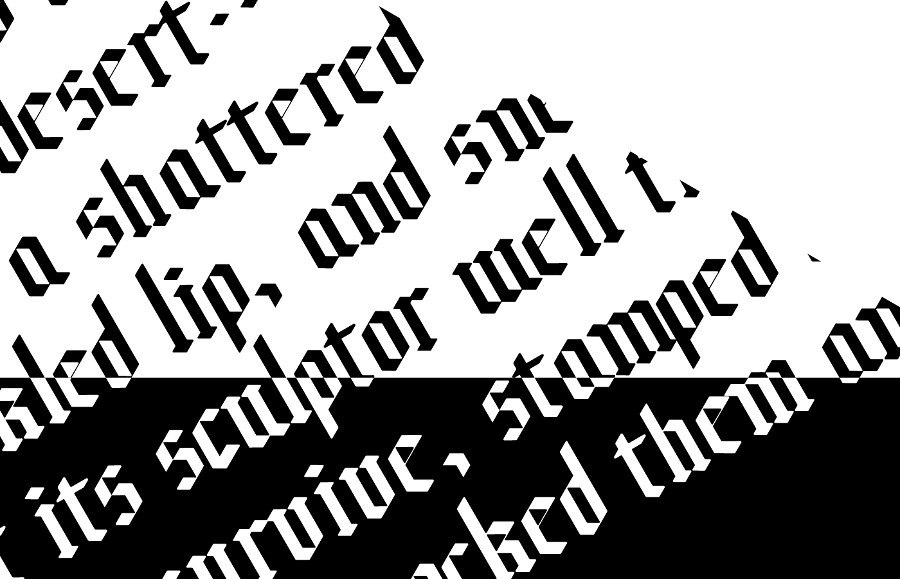
Ozymandias Typeface
Ozymandias is a free geometric modern blackletter typeface by Sebastian Fermin. Perfect for your any design projects and available for personal purpose only. Enjoy!